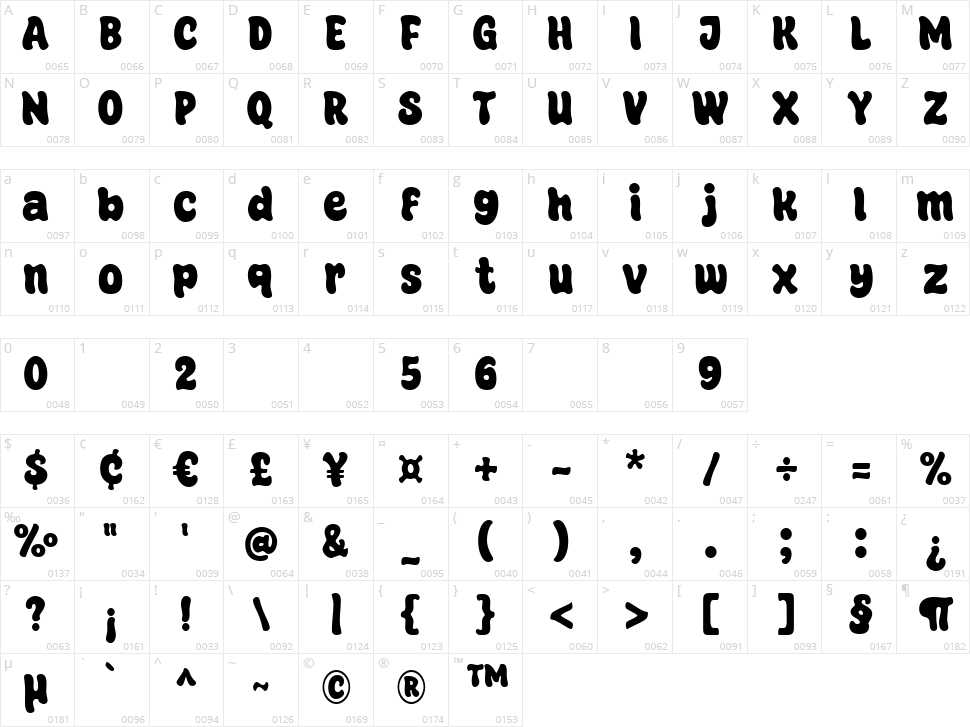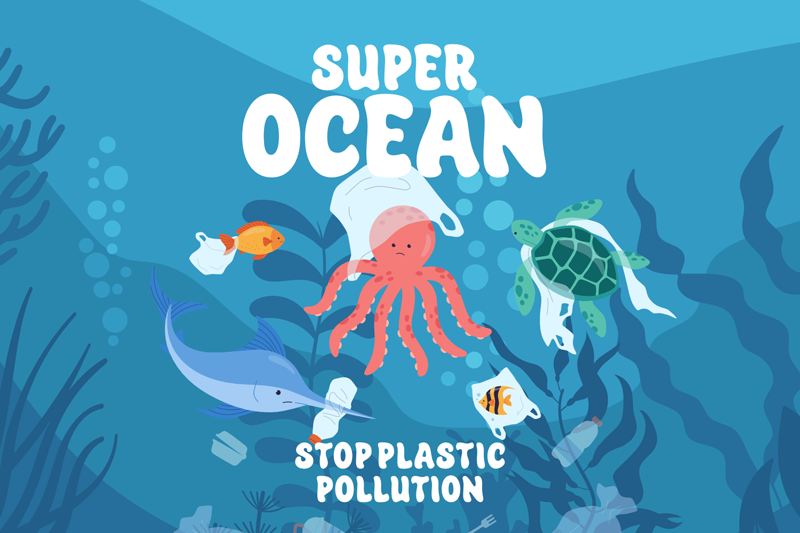
Super Ocean
Introducing "Super Ocean": A Casual Dive into the Deep End
Super Ocean is a typeface designed to evoke the carefree spirit of the open sea, inviting you to dive into a world of casual elegance.